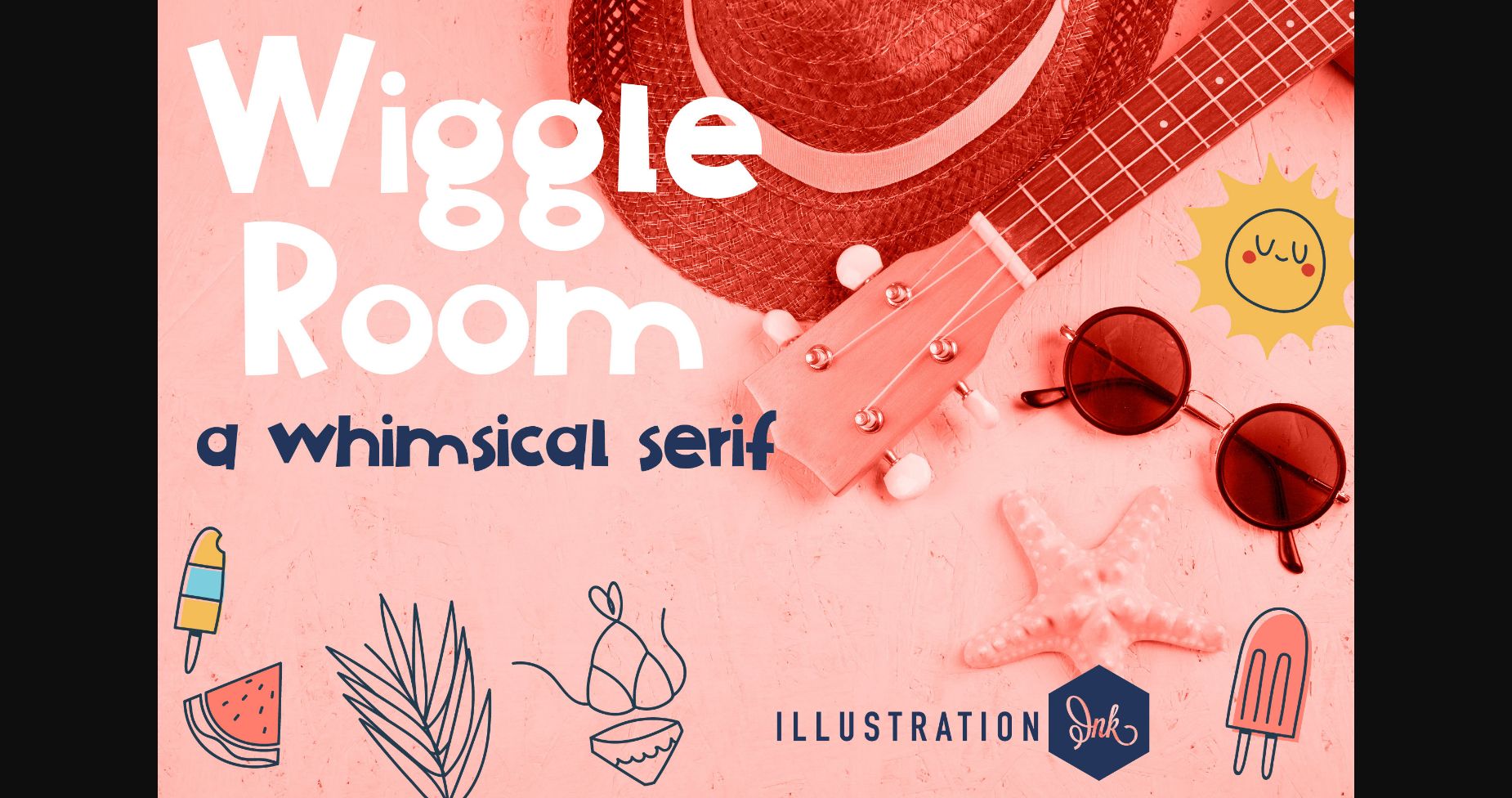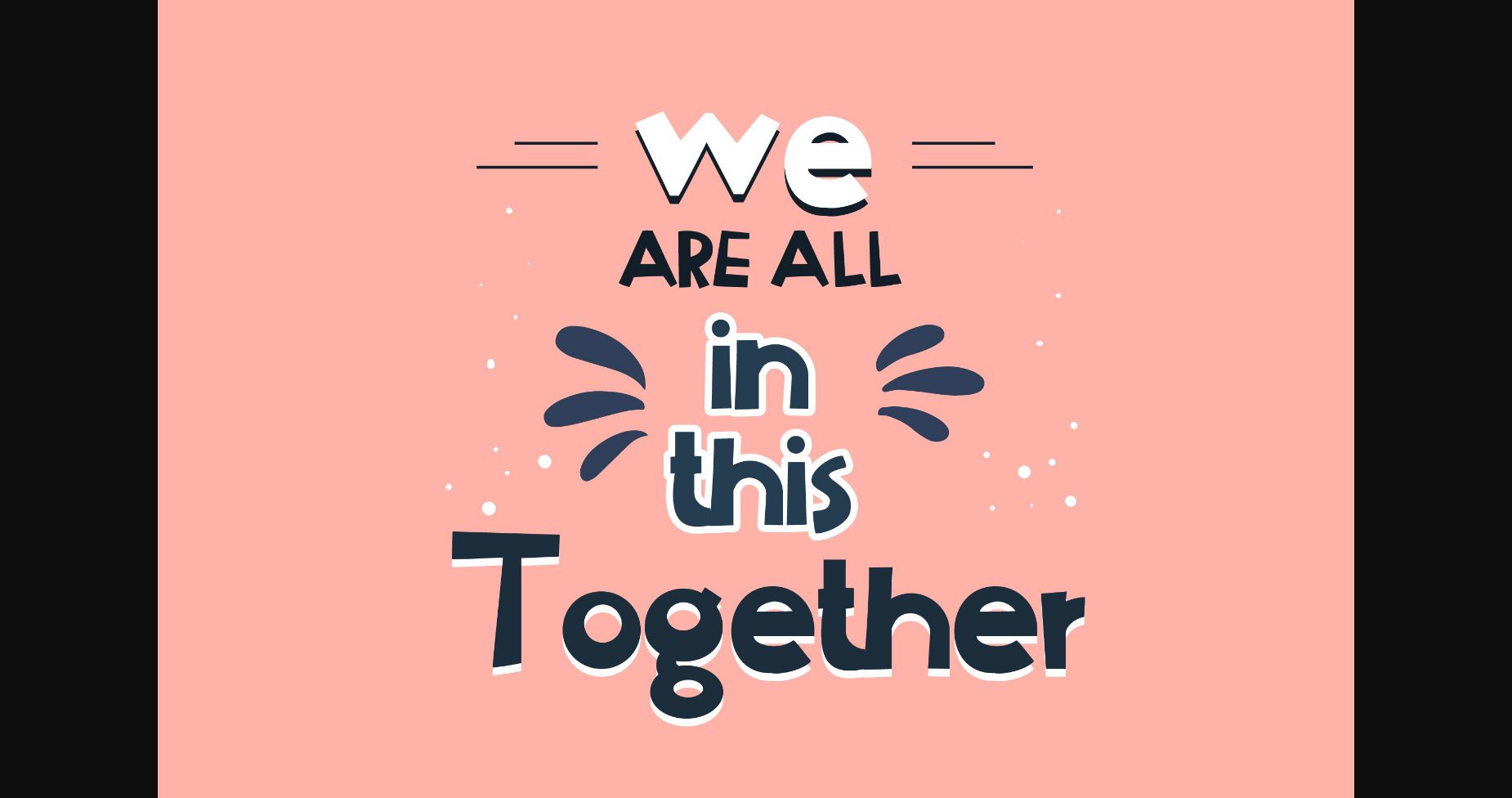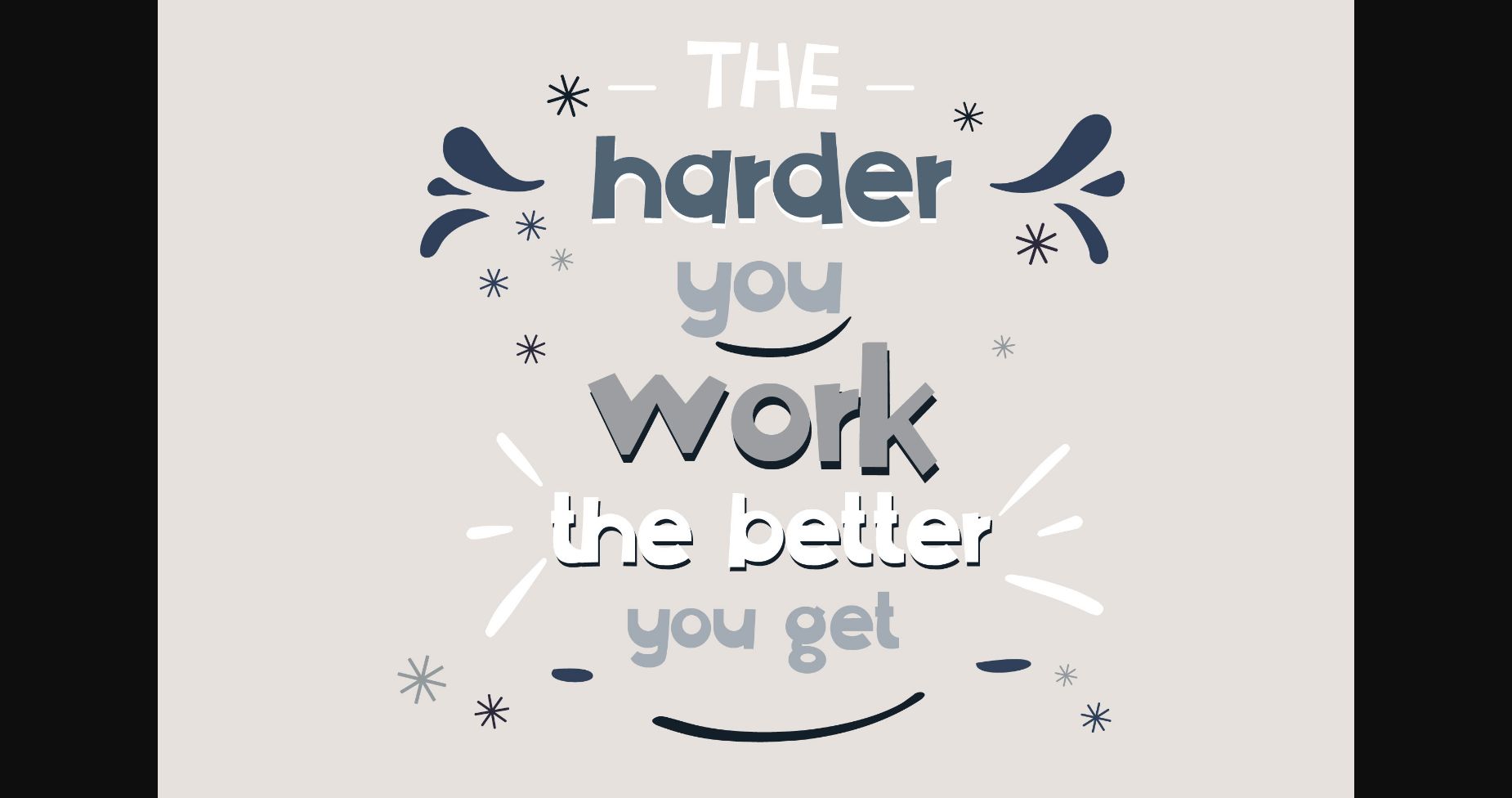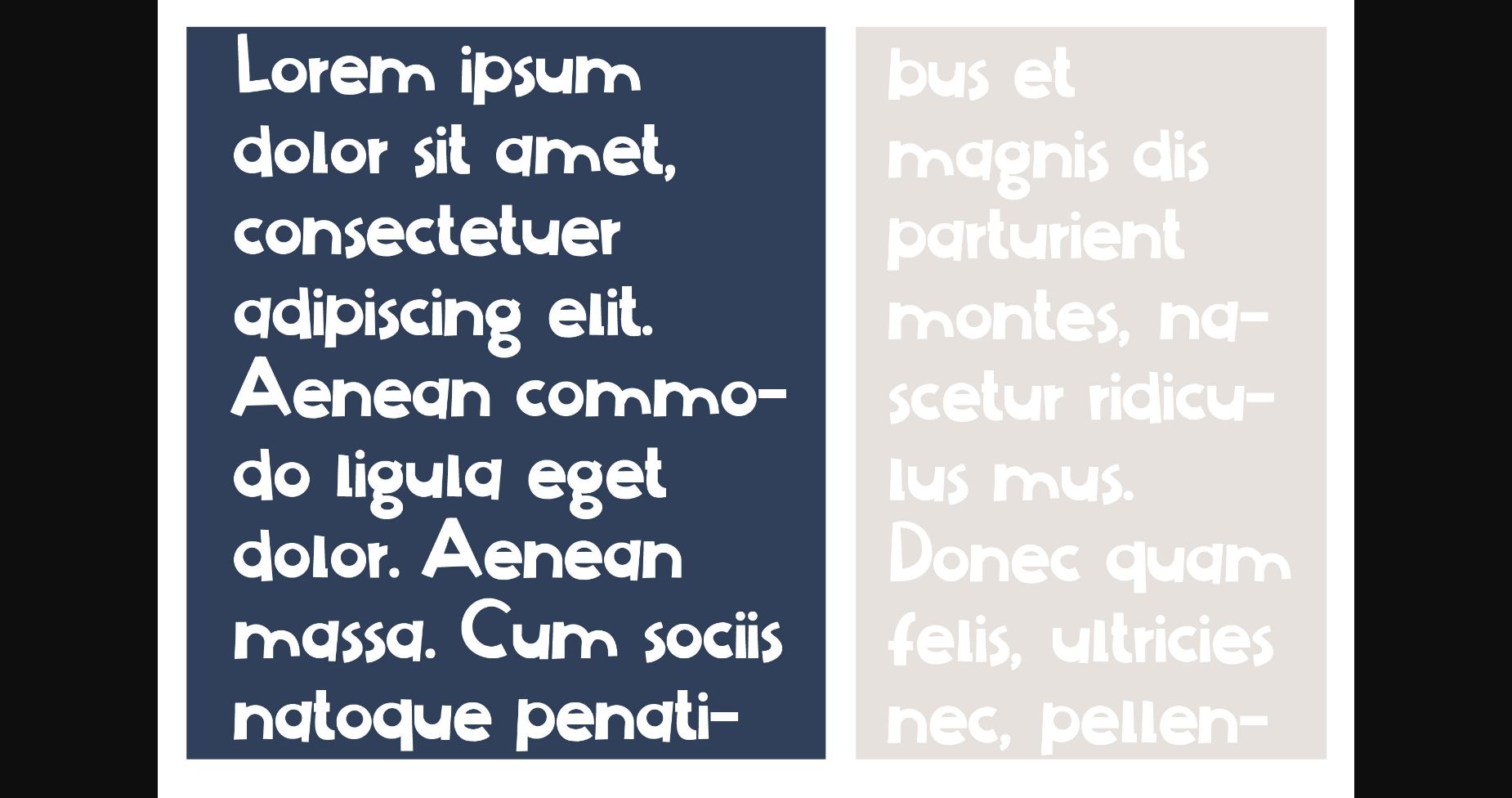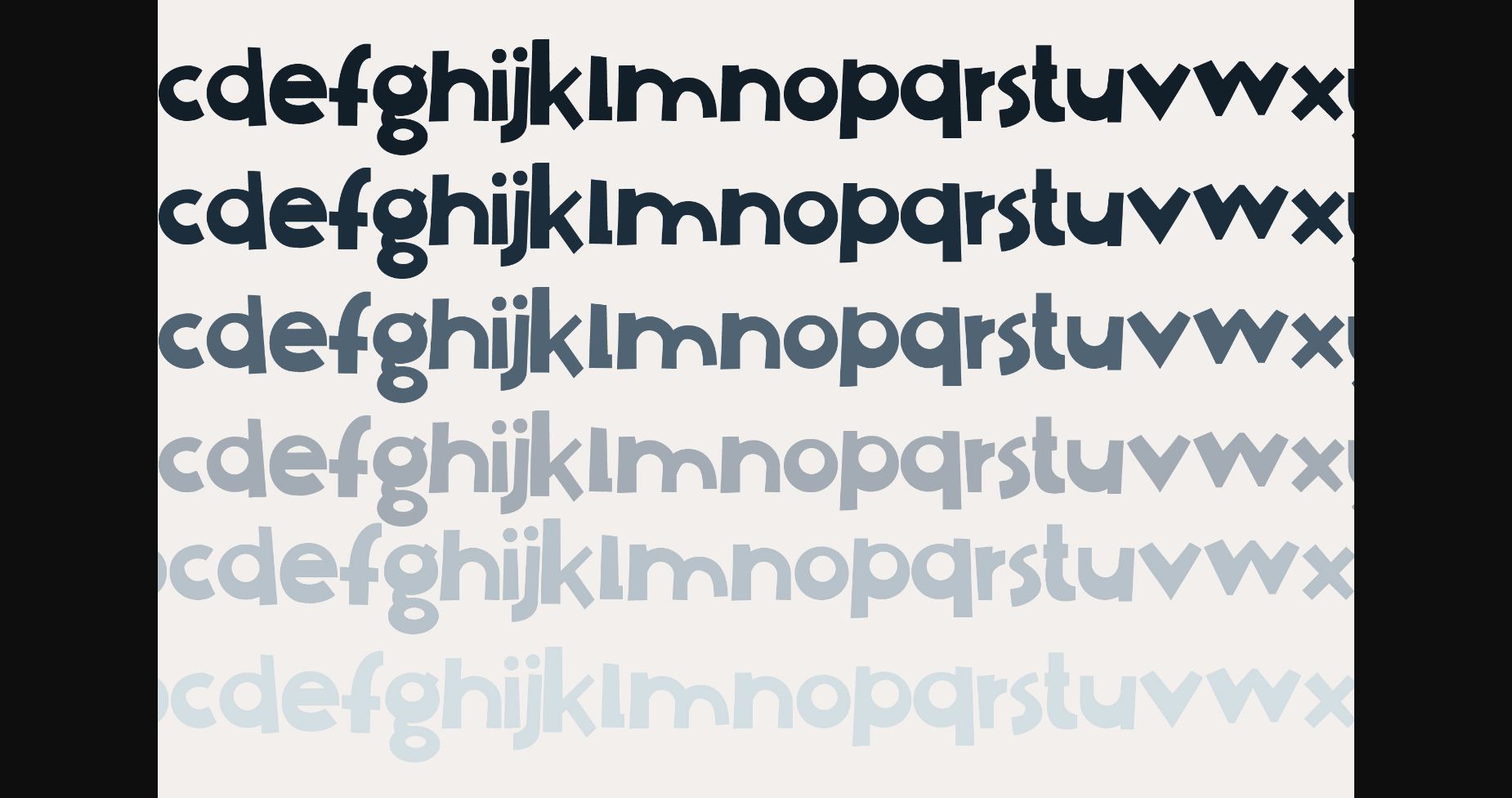
Wiggle Room Font
About Wiggle Room Font
Wiggle Room is a whimsical and stylish script font, designed to add a touch of magic to any project. With its delicate and flowing letterforms, this font exudes a sense of wonder and enchantment that is perfect for branding, invitations, and editorial design.